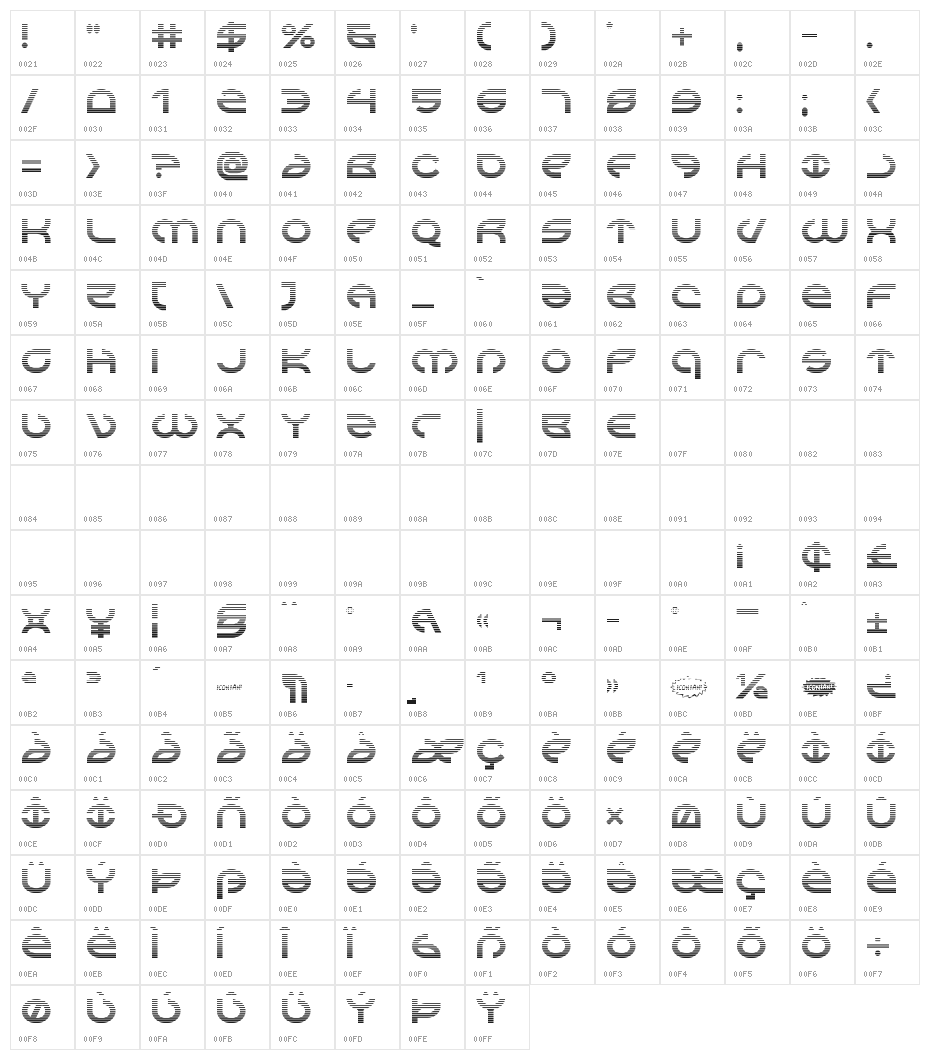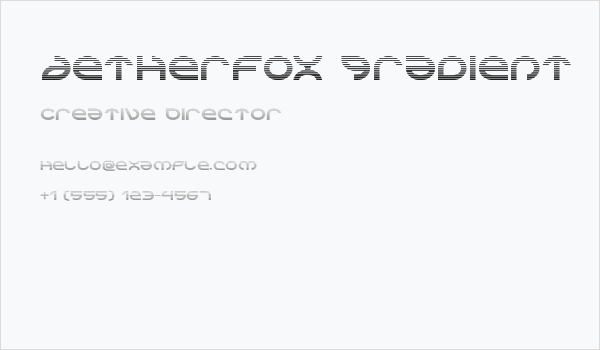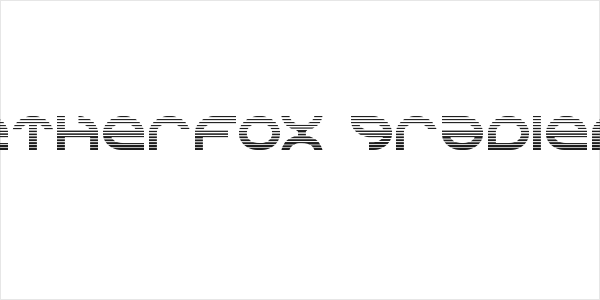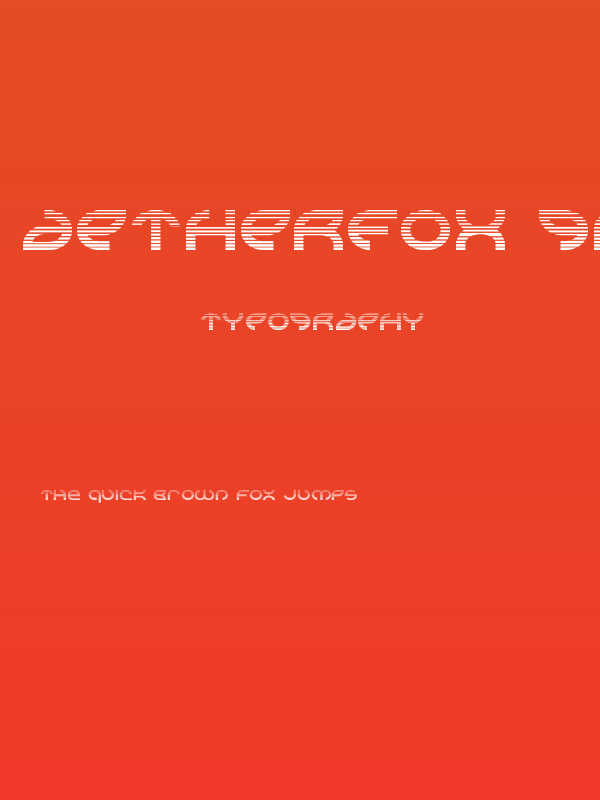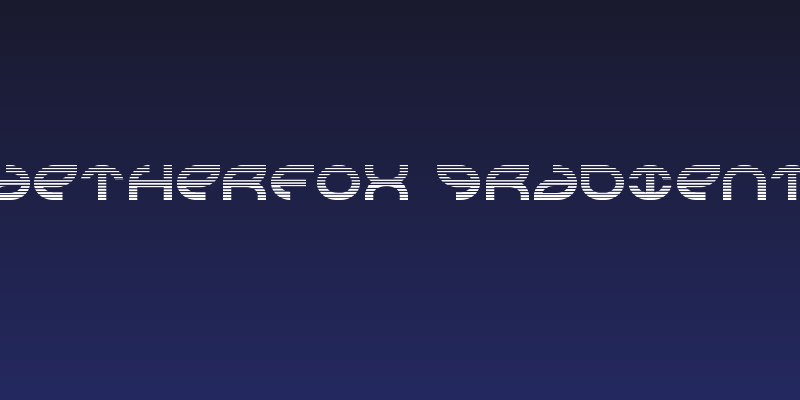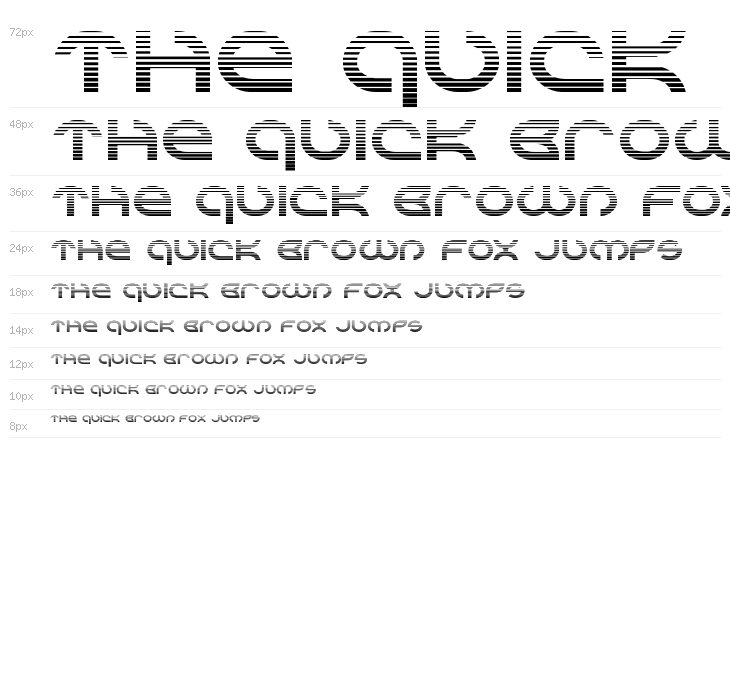
Aetherfox Gradient Font
Aetherfox Gradient Description
This font features a unique, futuristic design characterized by horizontal lines that create a gradient effect across each character. The letters are constructed with a series of parallel lines, giving them a digital and modern appearance. The uppercase and lowercase letters maintain a consistent style, with rounded edges and a geometric structure. Numbers and special characters follow the same design principles, ensuring uniformity across all glyphs. The font's distinct style makes it stand out, ideal for projects that require a modern and tech-inspired aesthetic.
| Proposed Projects | Ideal for tech branding, digital art, sci-fi themed projects, and modern advertising. |